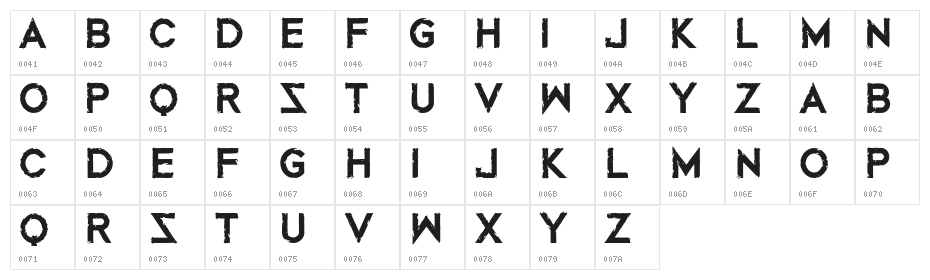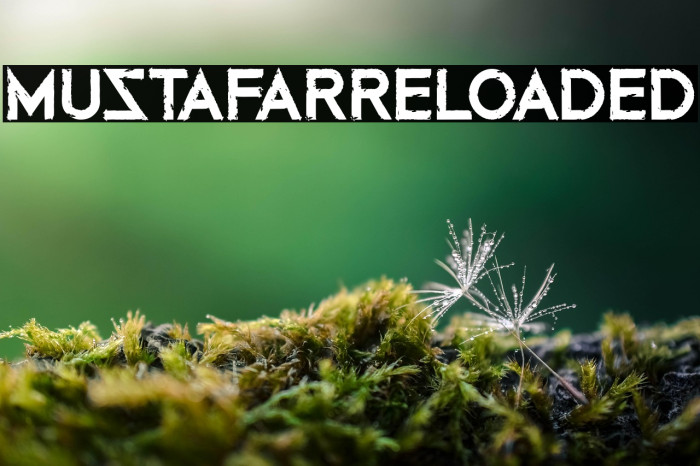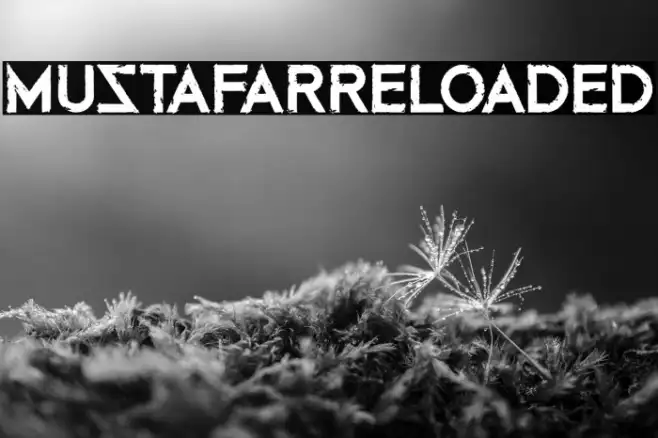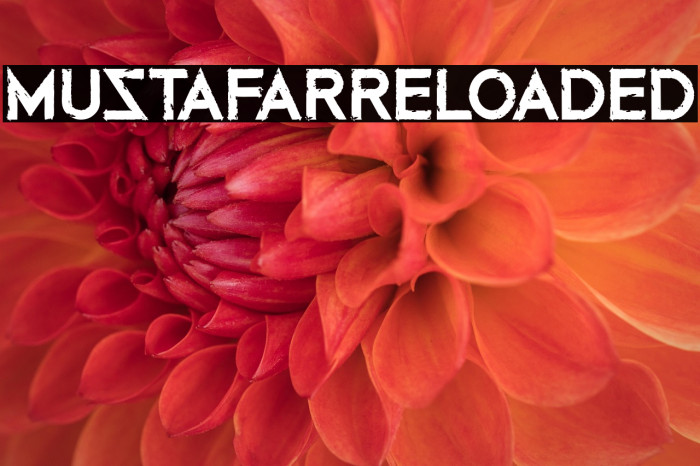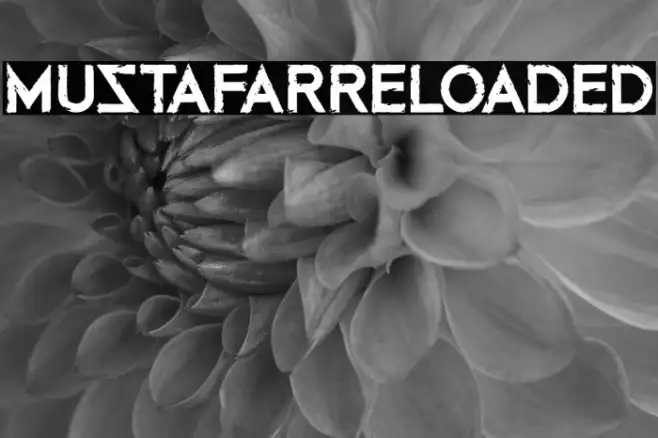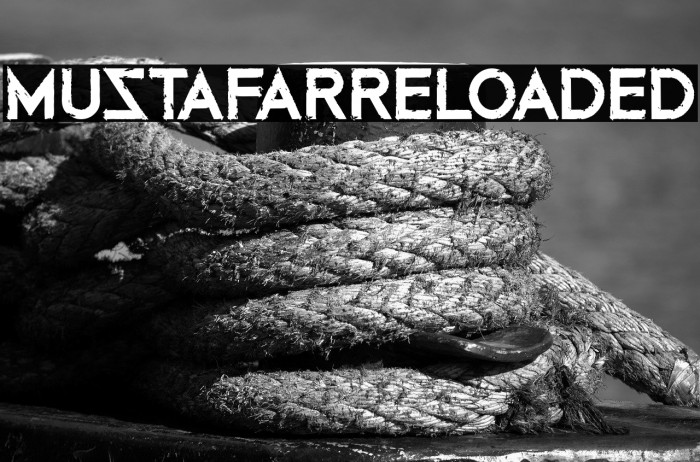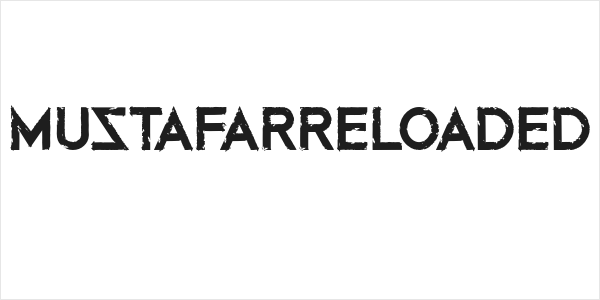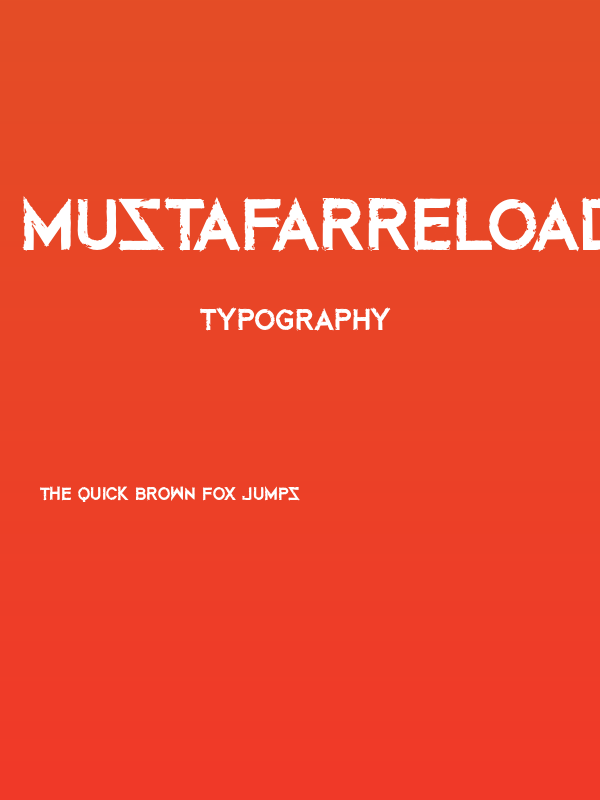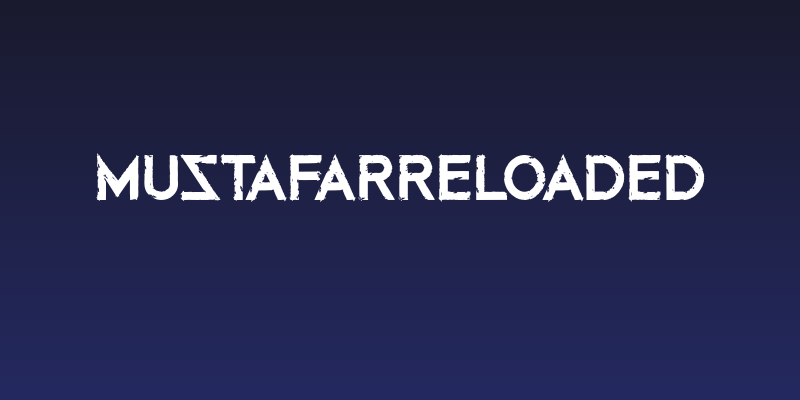
MustafarReloaded Font
MustafarReloaded Description
This font features a bold and rugged design with a distressed, grunge-like texture. The characters are angular and sharp, giving off a futuristic and edgy vibe. The uppercase letters are uniform in height, with some unique elements such as the stylized 'R' and 'S' that add character to the overall appearance. The font's rough edges and uneven strokes create a sense of movement and energy, making it stand out in any design. Its boldness and distinct style make it suitable for attention-grabbing headlines or logos.
| Overall Style | Futuristic, Edgy |
| Proposed Projects | Ideal for use in sci-fi movie posters, video game titles, edgy branding, and urban-themed designs. |